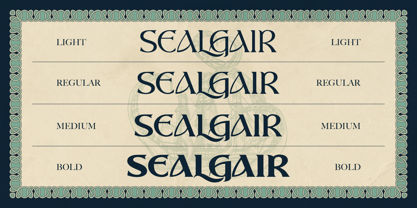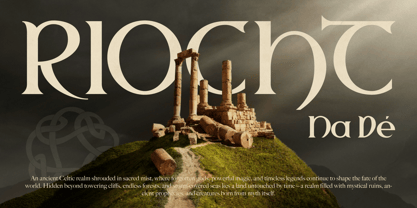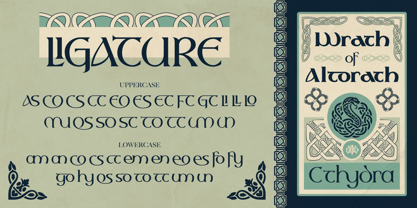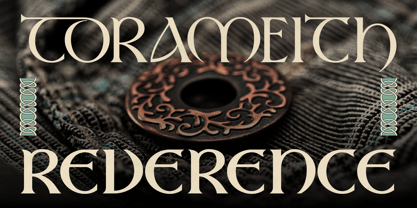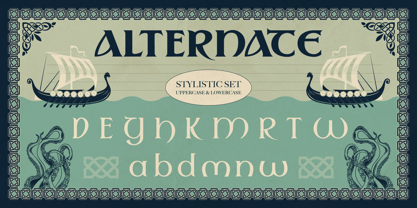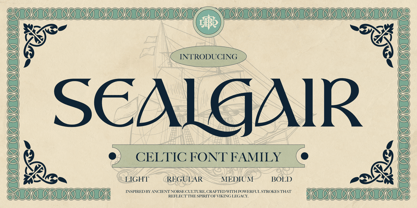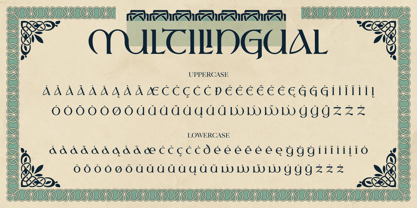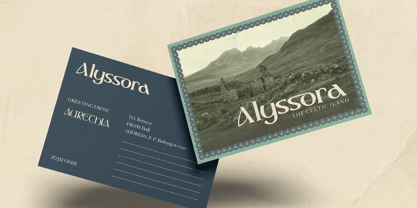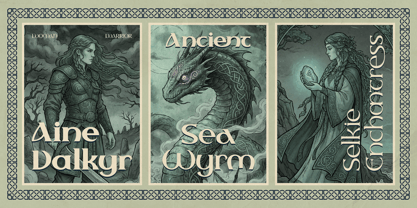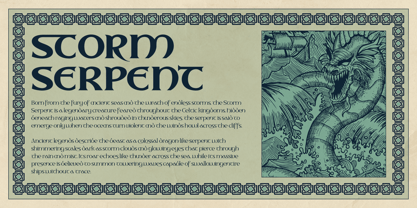
Sealgair
The Sealgair Font Family was designed by Eric Kurniawan and published by Burntilldead. Sealgair contains 4 styles and family package options. More about this family
Sealgair is a powerful and elegant Celtic font family inspired by ancient Norse and Gaelic aesthetics. Crafted with distinctive curves, sharp edges, and ornamental flow, this typeface captures the spirit of mythology, warriors, and timeless legends.
Designed to bring a bold historical character into modern design, Sealgair blends traditional Celtic style with clean readability, making it perfect for both display and creative branding needs.
With multiple weights (light, regular, medium, bold) and stylistic alternates, you can easily create dynamic, authentic, and visually rich typography compositions.
Perfect For: Celtic & fantasy-themed designs, Movie titles & game UI, Book covers & editorial layouts, Branding & logo design, Posters & merchandise, Tattoo design inspiration, Packaging with a mythical or historical vibe
Features: A - Z set (Uppercase & Lowercase), Number, Punctuation, Alternates, Ligatures, Multilingual